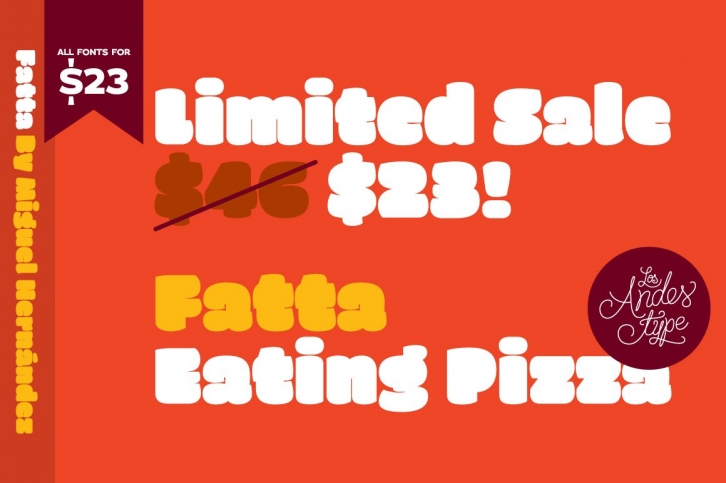
Huge, bold and friendly. With original fat curves & paintbrush terminals. Fatta is Miguel Hernandez font, an ultra black humanist sans. It has three variants: Regular, Italic & Italic Swash, which allow the user to compose display text in a dynamic range of expression for posters, logotype & fashion.